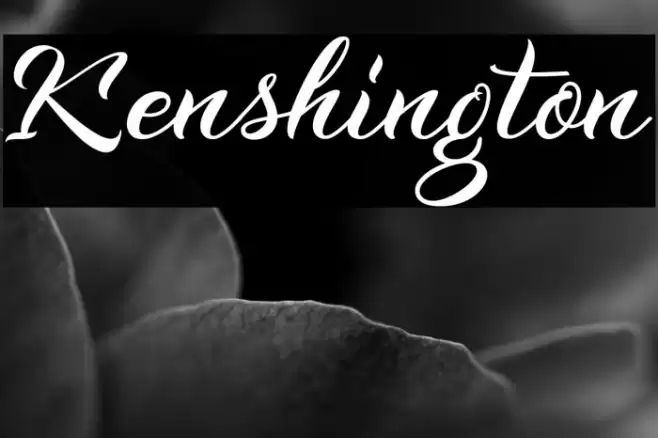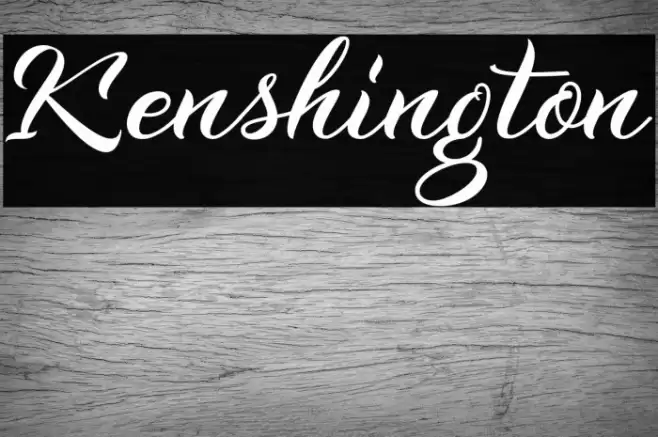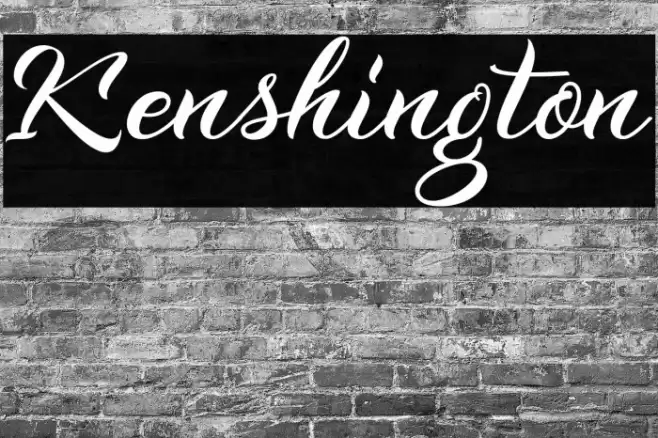
Kenshington Font
Kenshington Description
This elegant script font exudes a sense of sophistication and fluidity, characterized by its smooth, flowing lines and graceful curves. The uppercase letters are bold and prominent, while the lowercase letters maintain a consistent rhythm, creating a harmonious balance. The numerals are stylishly integrated, maintaining the font's overall aesthetic. The special characters are designed with the same attention to detail, ensuring they complement the alphabet seamlessly. This font is ideal for projects that require a touch of elegance and class.
An elegant script font with smooth, flowing lines and graceful curves from Regular fonts.
- Font: Kenshington
- Proposed Projects: Ideal for wedding invitations, luxury branding, elegant stationery, and high-end product packaging.
- Overall Style: Elegant
- Use Case: Logos, Invitations, Branding